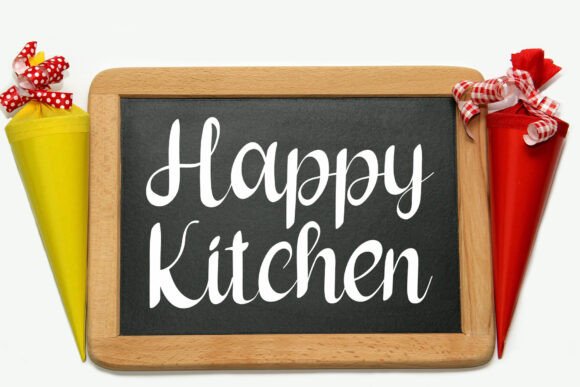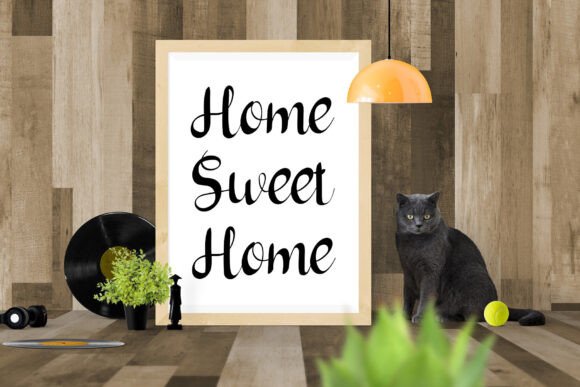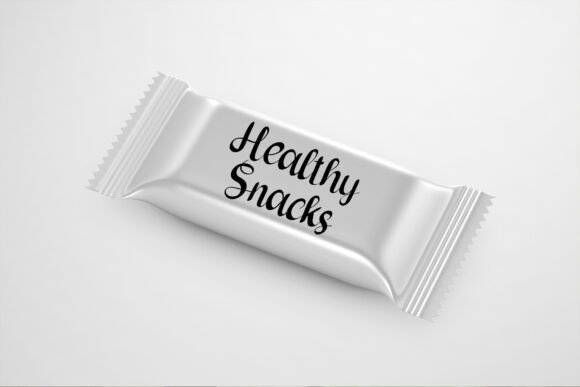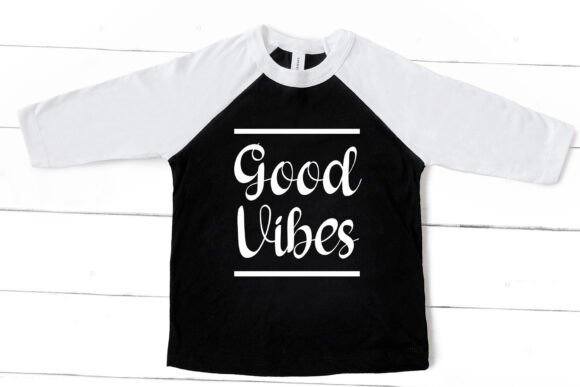
Introducing Barber Font: Elevate Your Designs with Elegance and Sophistication
In the world of typography, fonts play a crucial role in transforming a design from ordinary to extraordinary. For designers and crafters looking for that perfect handwritten touch, the Barber Font is an exceptional choice. This unique and elegant font is designed to add a touch of sophistication to various design projects, including wedding invitations, greeting cards, billboards, logos, business cards, and more.
The Unique Features of Barber Font
What sets Barber Font apart is its distinctive characteristics, carefully crafted to mimic the natural, hand-made touch of handwritten text. One of its standout features is the varied baseline, which gives the font a dynamic and organic feel. This variability ensures that the text does not look monotonous or robotic, adding a layer of authenticity to your designs.
Moreover, the Barber Font is created with a focus on elegance and versatility. Its unique style ensures that it looks great in both large and small sizes, making it perfect for a wide range of applications. Whether you’re working on a billboard that requires bold and clear text or a business card that needs a sophisticated and subtle touch, Barber Font adapts seamlessly.
Applications of Barber Font
The applications of Barber Font are vast and varied. Here are a few ideas to get you started:
- Wedding Invitations: Add a touch of romance and elegance to your wedding invitations with Barber Font. Its sophisticated look makes it perfect for formal wedding announcements.
- Greeting Cards: Whether it’s a birthday, anniversary, or holiday card, Barber Font brings a personal and heartfelt touch to your greetings.
- Billboards: For large-scale advertising, Barber Font’s clear and elegant style ensures your message stands out and captures the attention of your audience.
- Logos: Create a memorable brand identity with Barber Font. Its unique and elegant style can help your logo stand out in any industry.
- Business Cards: Make a lasting impression with your business cards. Barber Font adds a professional yet personal touch, making your card memorable.
Another significant advantage of Barber Font is that it is PUA (Private Use Area) encoded. This encoding allows designers to access all glyphs and swashes easily, providing greater flexibility and creativity in their designs. With PUA encoding, you can effortlessly incorporate special characters and decorative elements into your text, enhancing the visual appeal of your projects.
Why Choose Barber Font?
With so many fonts available, why choose Barber Font for your projects? The answer lies in its unique blend of elegance, versatility, and ease of use. Here are a few reasons to consider:
- Elegant and Unique: Barber Font offers a distinctive style that can elevate any design.
- Versatile: Suitable for a wide range of applications, from large billboards to small business cards.
- Easy to Use: PUA encoding makes it simple to access and incorporate glyphs and swashes.
- Handmade Touch: Adds a natural, hand-made feel to your designs, making them more engaging and authentic.
In conclusion, Barber Font is a valuable addition to any designer’s toolkit. Its unique and elegant style, combined with its versatility and ease of use, makes it an ideal choice for a variety of projects. Whether you’re a professional designer working on a large-scale campaign or a crafter creating personalized gifts, Barber Font can help you achieve spectacular results. With its natural, hand-made touch and PUA encoding for easy access to glyphs and swashes, Barber Font is sure to bring your ideas to life in a more real and captivating way.